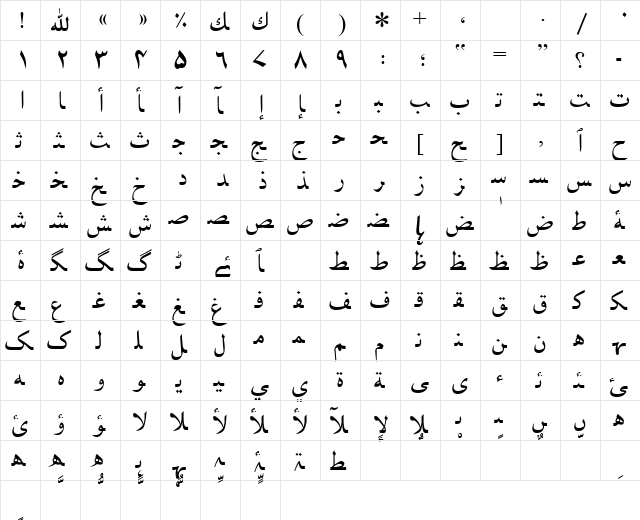
AlKatib1 Regular
Design Context for AlKatib1 Typeface
AlKatib1 takes a measured approach to typography — its balanced proportions and neutral character make it a reliable workhorse for both digital and print work.